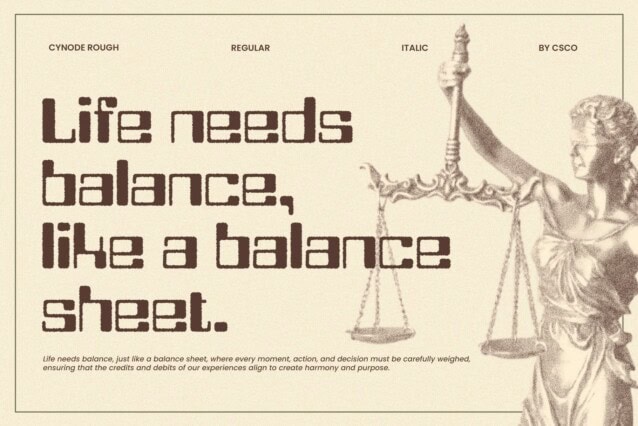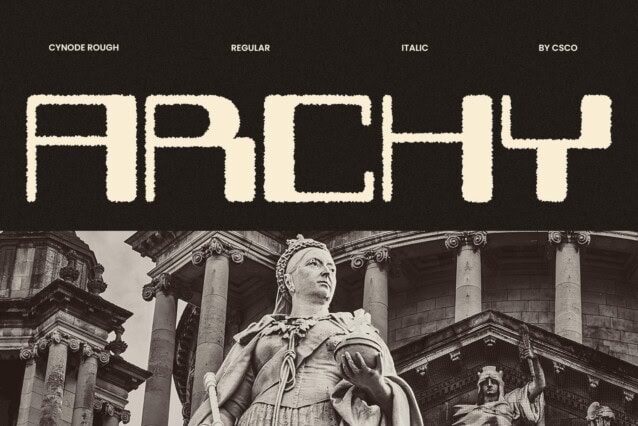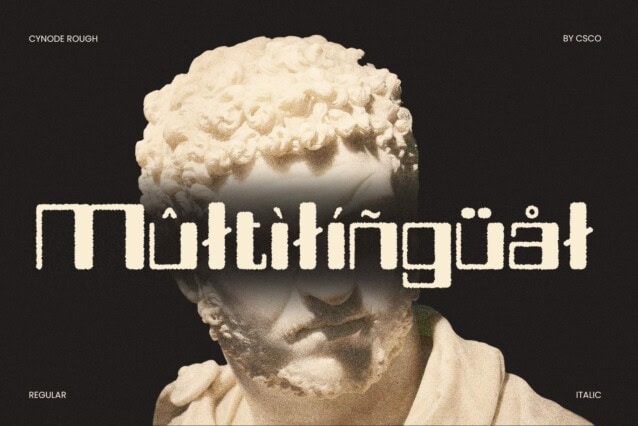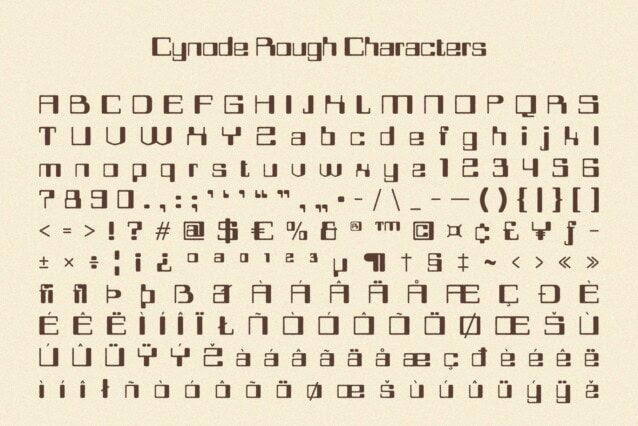
Cynode Rough Font
Cynode Rough Font is a modern display font designed for high-tech, futuristic, and industrial-inspired designs. Its bold, structured letterforms exude a sense of strength and innovation, making it an excellent choice for projects that require a cutting-edge, powerful aesthetic. Whether used for branding, advertising, or digital interfaces, this font brings a bold presence to any composition.